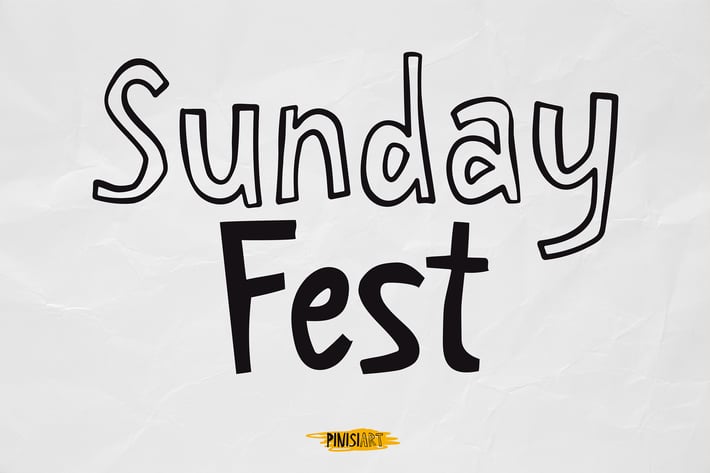
Travel & Influencer Font - Sunday Fest
Meet Sunday Fest, a lively and expressive handwritten font designed to bring a sense of warmth, creativity, and spontaneity to your designs. Whether you're crafting travel vlogs, social media content, lifestyle blogs, book covers, or creative journals, this font adds a personal and friendly touch to every project. Its playful yet refined strokes mimic natural handwriting, making it perfect for captions, quotes, and storytelling.
From wanderlust-inspired social posts to heartfelt journal entries, Sunday Fest embraces the carefree, adventurous essence of leisure and travel. Use it to enhance influencer branding, cozy book layouts, invitations, or branding that needs an approachable feel. The mix of regular and outlined styles gives your designs versatility—combine them for dynamic text compositions that feel effortlessly hand-drawn.
Two Styles: Regular & Outline for creative layering
Complete Character Set: Uppercase, lowercase, numbers, and punctuation
* Versatile Applications: Ideal for social media, branding, book titles, editorial layouts, and content creators
Let Sunday Fest be the voice of your next creative journey, adding an authentic, handcrafted feel to your stories
From wanderlust-inspired social posts to heartfelt journal entries, Sunday Fest embraces the carefree, adventurous essence of leisure and travel. Use it to enhance influencer branding, cozy book layouts, invitations, or branding that needs an approachable feel. The mix of regular and outlined styles gives your designs versatility—combine them for dynamic text compositions that feel effortlessly hand-drawn.
Two Styles: Regular & Outline for creative layering
Complete Character Set: Uppercase, lowercase, numbers, and punctuation
* Versatile Applications: Ideal for social media, branding, book titles, editorial layouts, and content creators
Let Sunday Fest be the voice of your next creative journey, adding an authentic, handcrafted feel to your stories